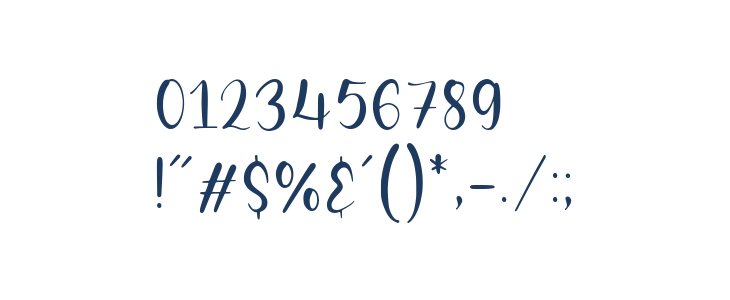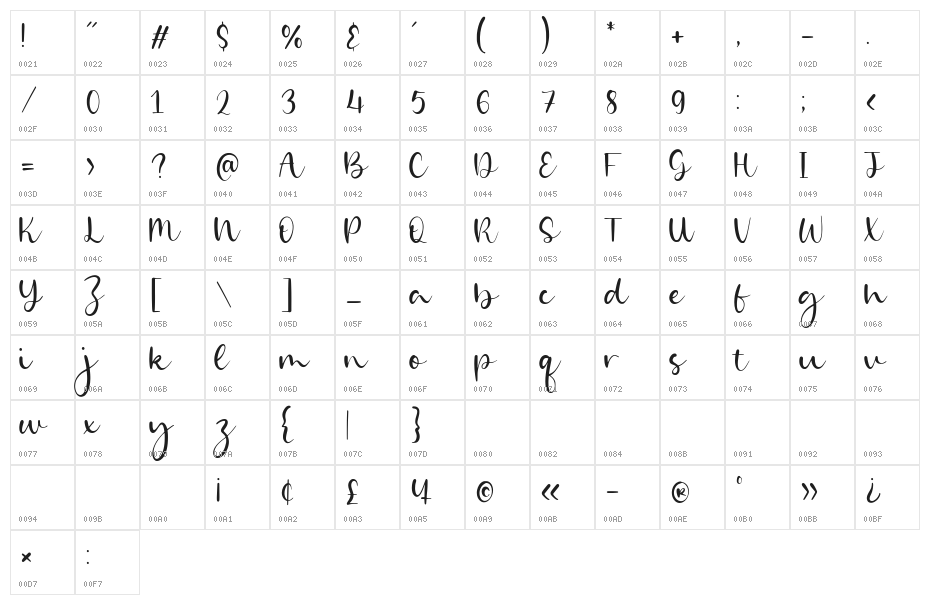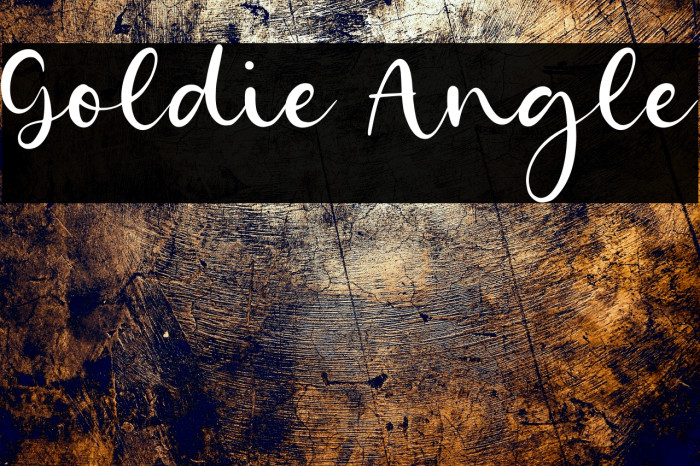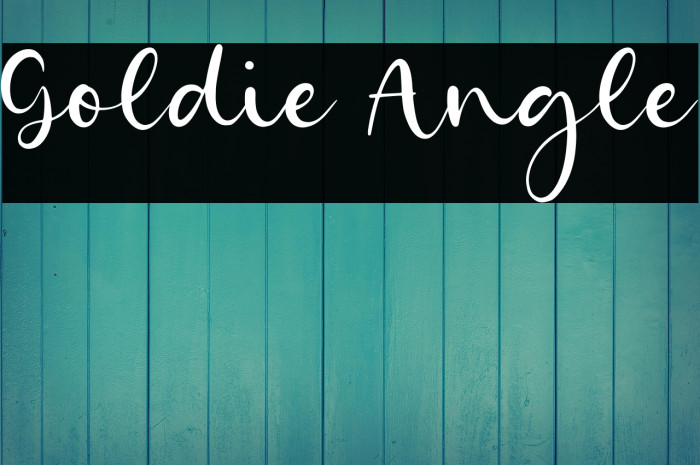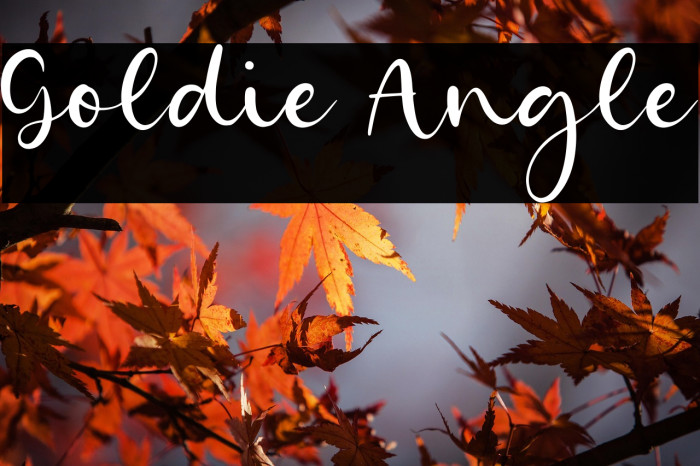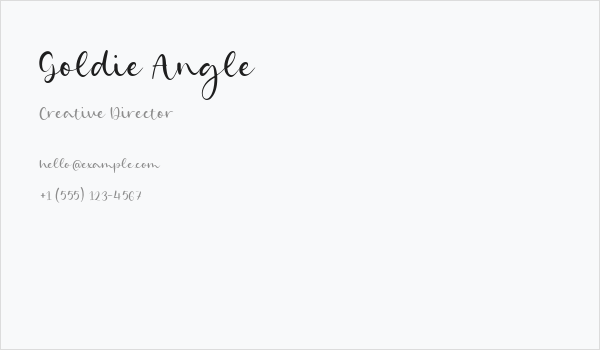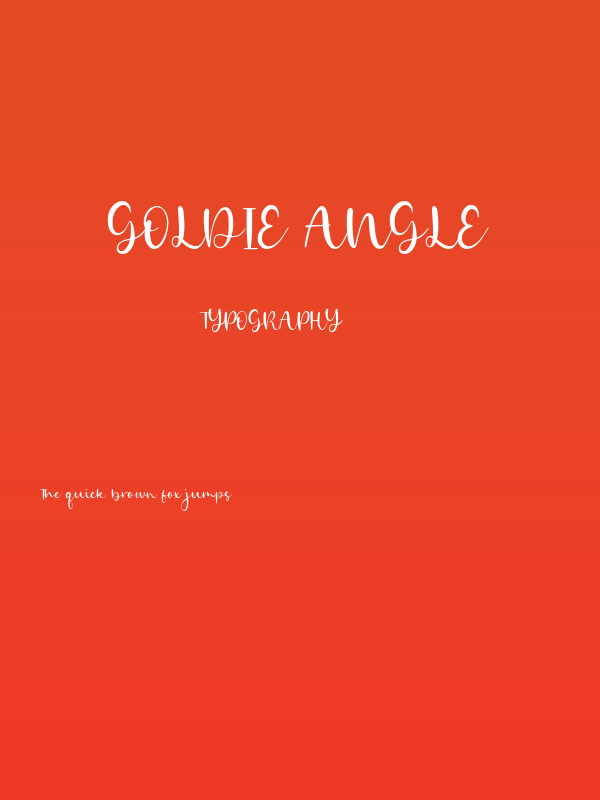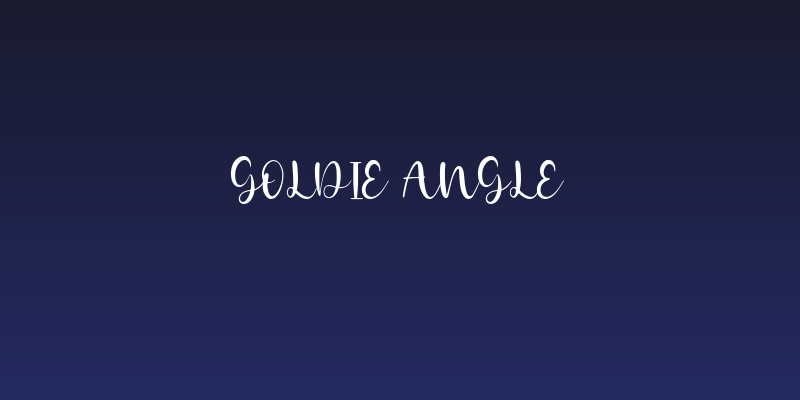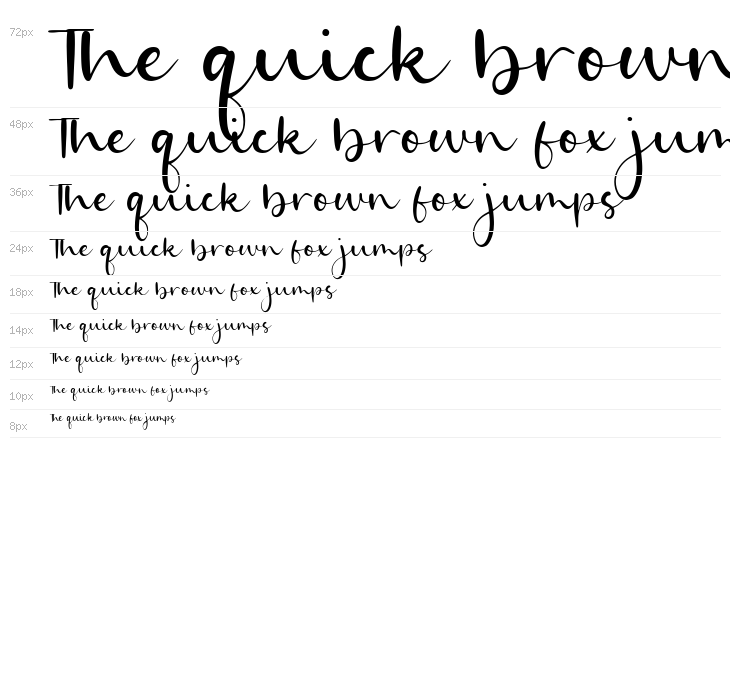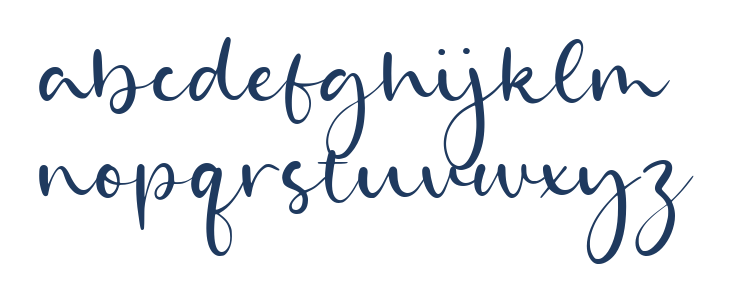
Goldie Angle Font
Goldie Angle Description
This font features a playful and elegant script style with a handwritten appearance. The characters are fluid and connected, giving a sense of motion and creativity. The uppercase letters are bold and slightly larger than the lowercase, which are more delicate and flowing. The numbers maintain the same playful style, ensuring consistency throughout. Special characters are included, matching the overall aesthetic with a touch of whimsy. The strokes vary in thickness, adding a dynamic quality to the text. This font is perfect for projects that require a personal and artistic touch.